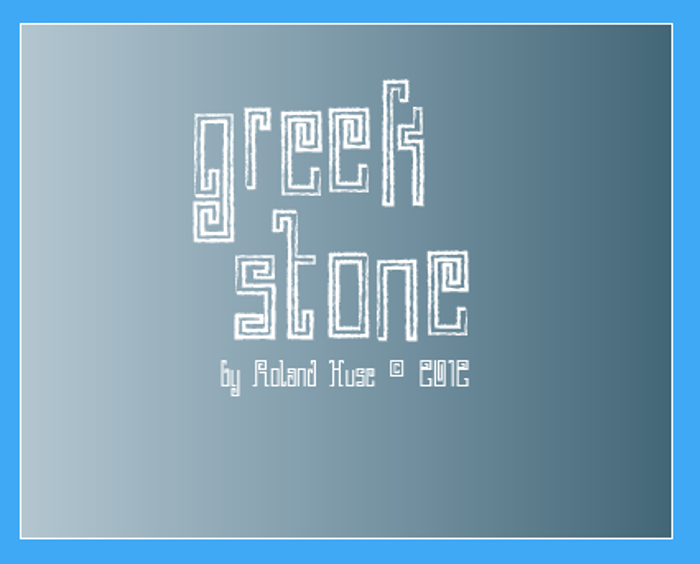
Greek Stone Font
Greek Stone is one of my first abstract font. each character has been designed in a cubic style I was trying to avoid curves but used only lines instead, as if in a construction of bricks. This is how it became „Greek”.Future update of this concept is up to its popularity.